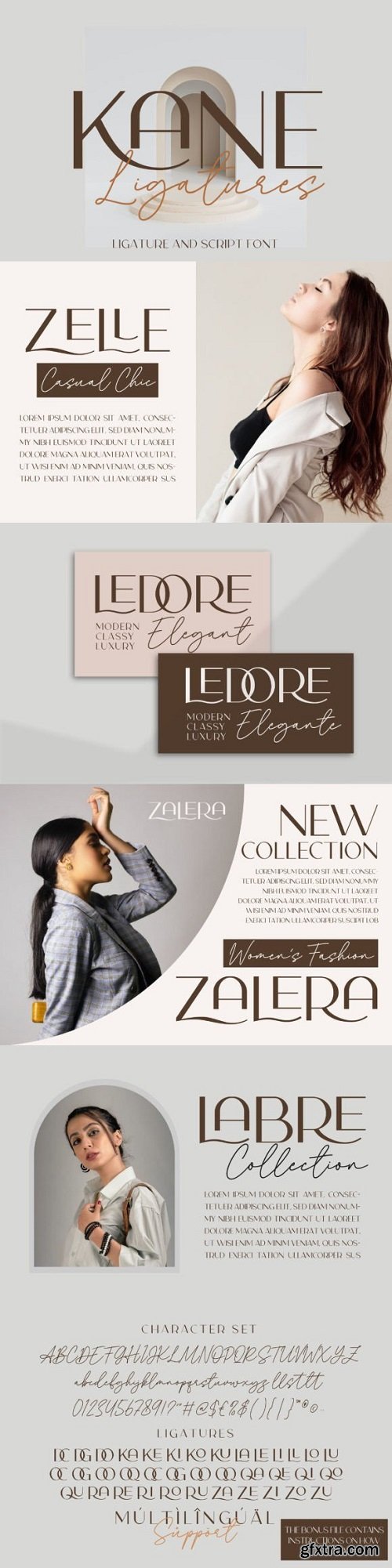
卡恩时尚优雅字体 duo
Kane is a stylish and elegant font duo (sans serif and script). Its unique and classy style makes it suitable for a large variety of chic designs.